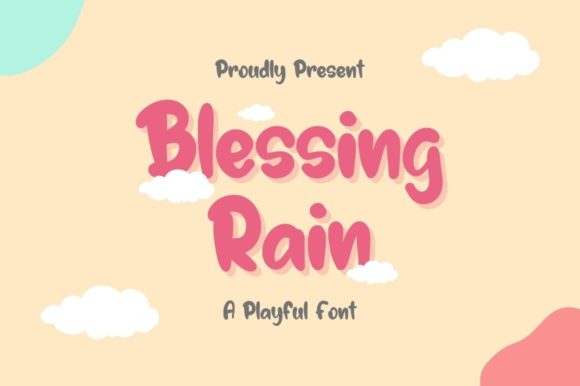
The Blessing Rain Font: A Playful and Adorable Display Font for Your Creative Projects
Have you ever been in the middle of a design project, and suddenly, you just can’t seem to find the right font? I recall a particularly frustrating experience while working on a children’s book cover. My client wanted a font that was both playful and elegant, but I just couldn’t seem to find the perfect fit. That’s when I stumbled upon the Blessing Rain font, and it completely transformed my design!
The Blessing Rain font is a display font with a playful and adorable style that’s perfect for a wide range of creative projects, from children’s and women’s products to book covers, logos, branding, and business needs. In this article, I’ll share my experience with this beautiful font, including what I love about it, some practical tips on how to use it, and a few similar fonts you might enjoy.
An Honest Review of Blessing Rain Font
What I Love About Blessing Rain Font ✨
- ✅ Playful and adorable style: The Blessing Rain font has a unique, hand-drawn feel that’s perfect for projects that require a touch of whimsy and fun.
- ✅ Highly versatile: This font can be used for a wide range of projects, from children’s books and logos to branding and business materials.
- ✅ Easy to read: Despite its playful style, the Blessing Rain font is surprisingly easy to read, making it perfect for body text and headlines.
While the Blessing Rain font is an excellent choice for many projects, there are a few things to keep in mind:
- 🤔 Limited use for formal projects: Due to its playful style, the Blessing Rain font may not be the best choice for formal projects, such as corporate reports or academic papers.
- 🤔 May not be suitable for very small text: As with many display fonts, the Blessing Rain font may not be the best choice for very small text, as it can become difficult to read.
The Designer Inspiration Behind Blessing Rain Font
The Blessing Rain font was designed with the intention of creating a playful and adorable font that’s perfect for creative projects. The designer wanted to create a font that’s both fun and elegant, making it suitable for a wide range of applications.
Q: What type of projects is the Blessing Rain font best suited for?
A: The Blessing Rain font is perfect for children’s and women’s products, book covers, logos, branding, business needs, and many more creative projects.
Q: Is the Blessing Rain font easy to read?
A: Yes, despite its playful style, the Blessing Rain font is surprisingly easy to read, making it perfect for body text and headlines.